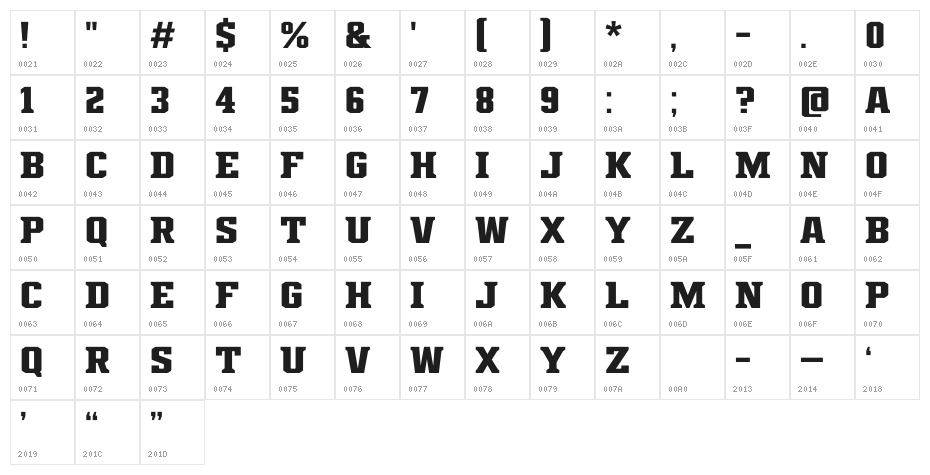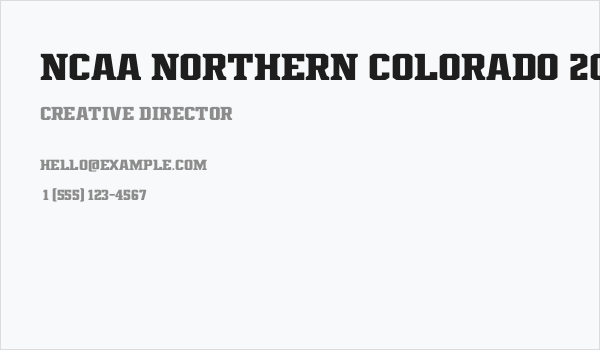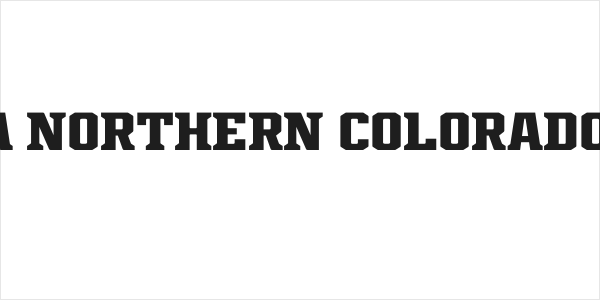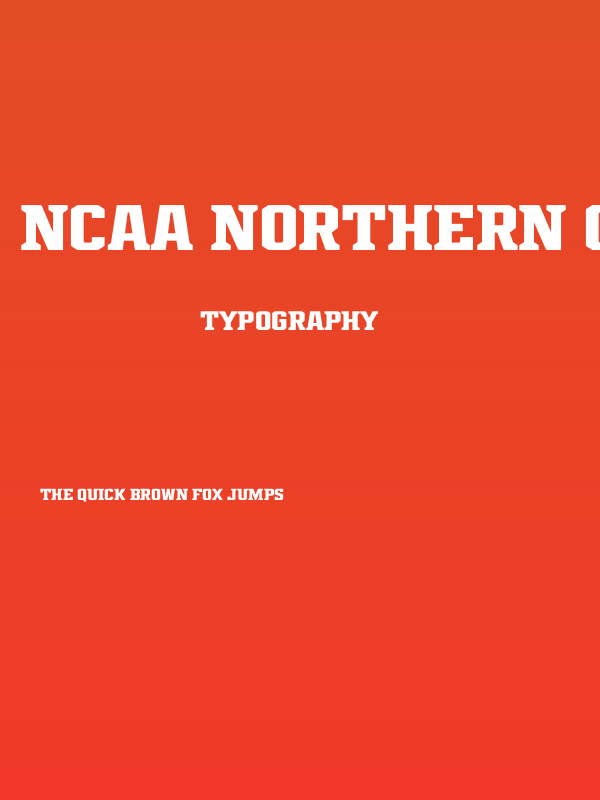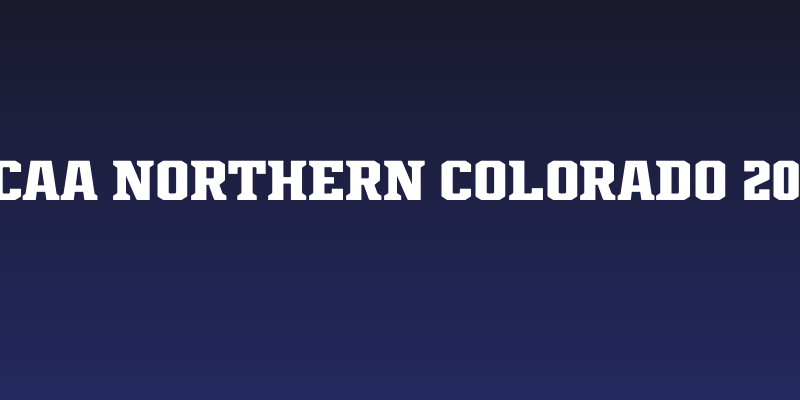
NCAA Northern Colorado 2015 Font
NCAA Northern Colorado 2015 Description
This font features a bold and robust design with strong, angular serifs that give it a commanding presence. The uppercase letters are uniform in height and width, creating a cohesive and structured appearance. The numbers are equally bold, maintaining the same weight and style as the letters, ensuring consistency throughout. The special characters are designed to match the overall aesthetic, with sharp edges and a solid build. This font's style is reminiscent of collegiate or sports-themed designs, making it ideal for projects that require a strong and impactful visual statement.
| Proposed Projects | Ideal for sports team branding, event posters, merchandise, and any project requiring a bold, impactful typeface. |